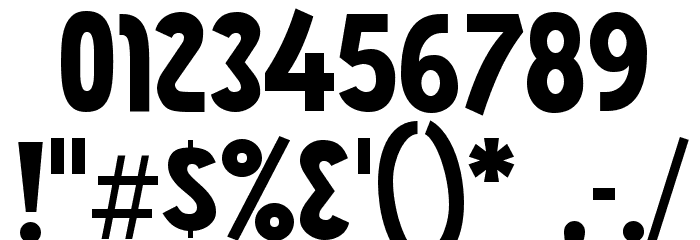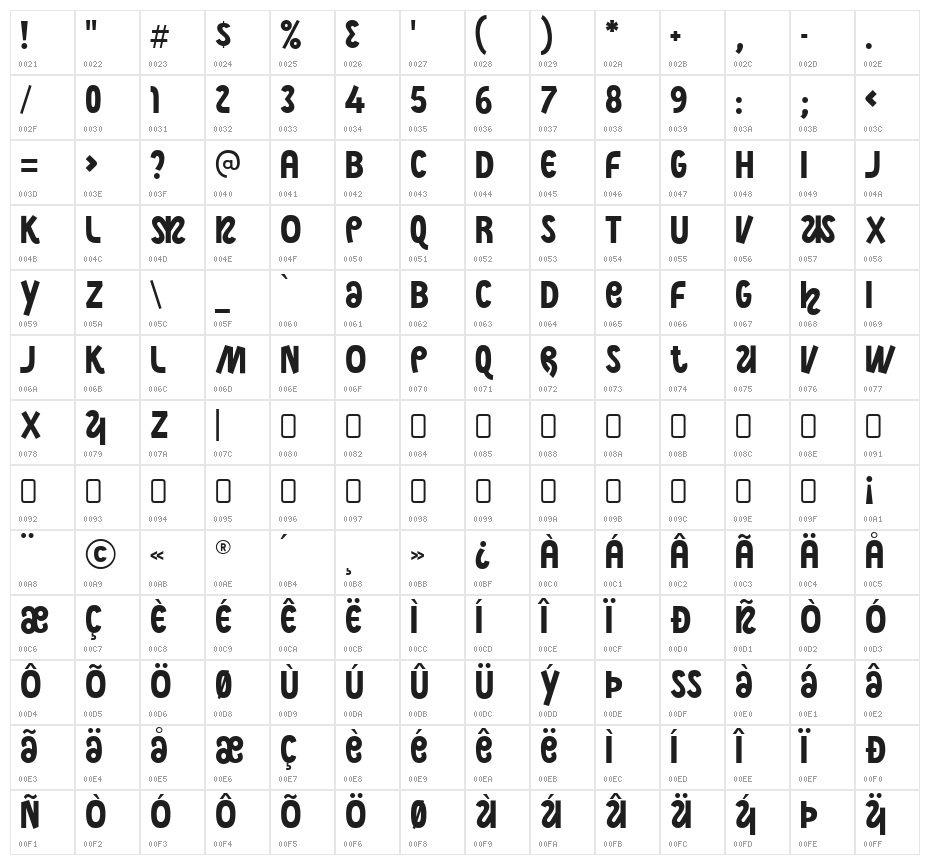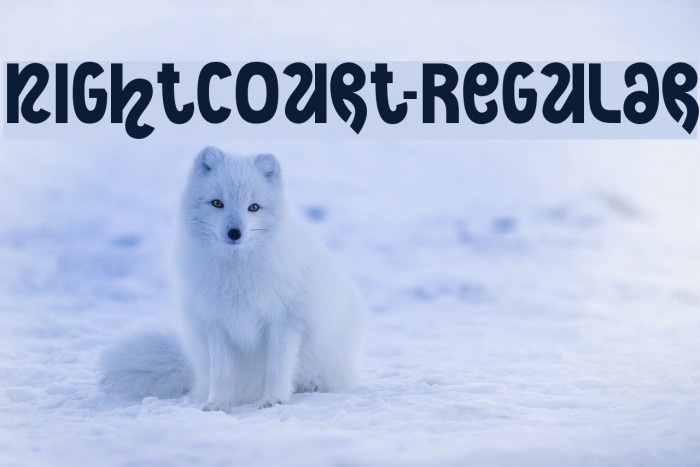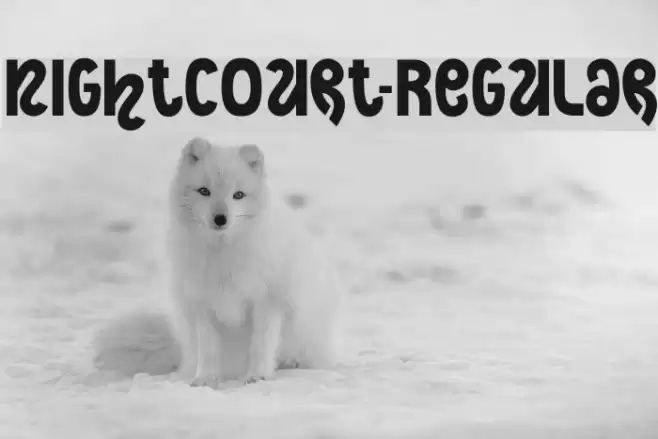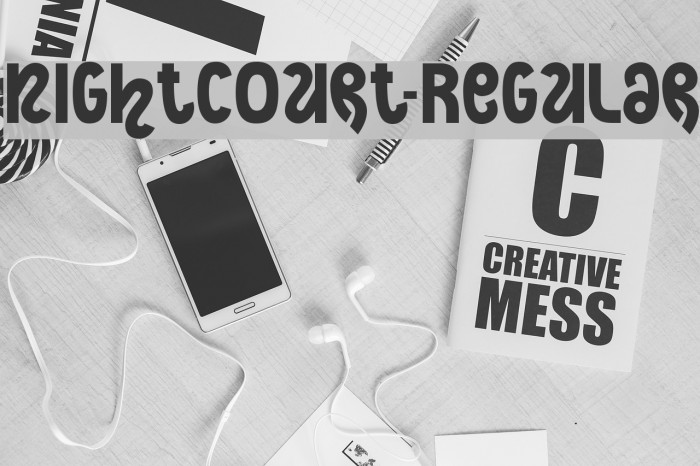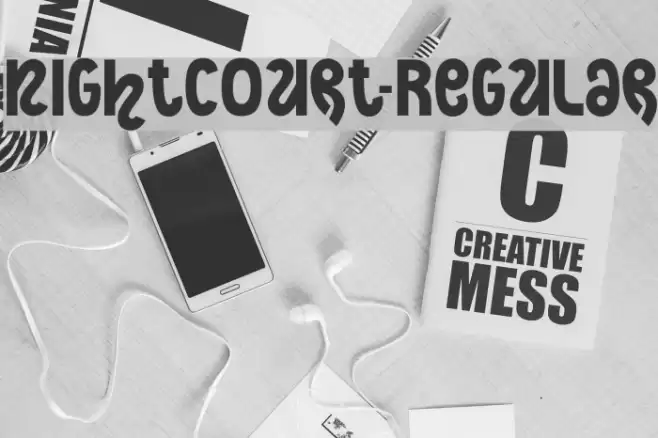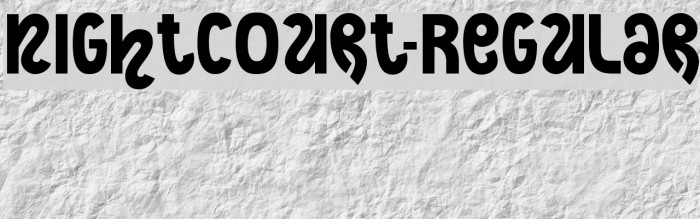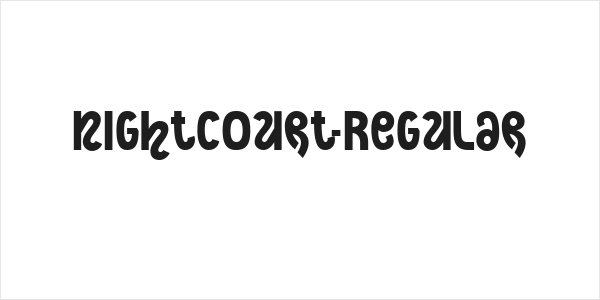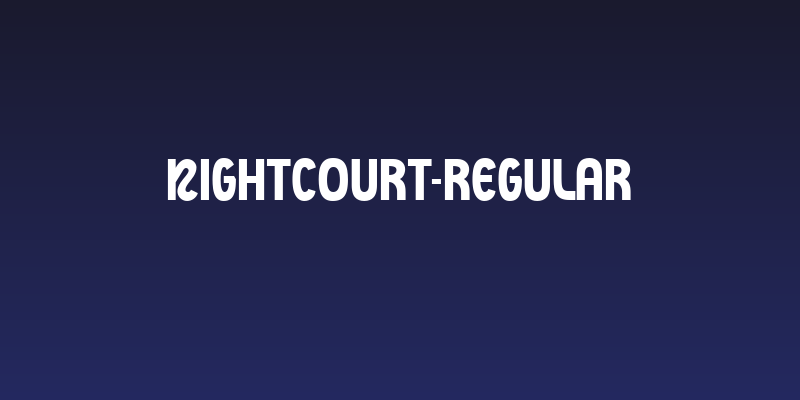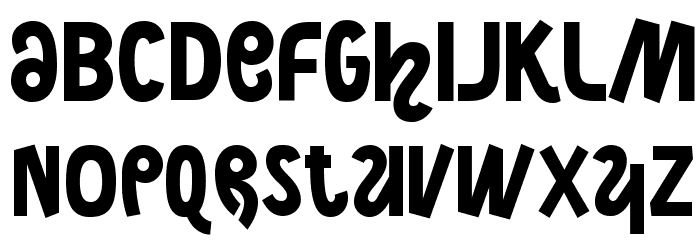
NightCourt-Regular Font
NightCourt-Regular Description
This font features a bold and dynamic style with a playful yet structured appearance. The characters are designed with a unique flair, incorporating both straight and curved lines that create a sense of movement and energy. The uppercase letters are particularly striking, with some characters featuring unexpected angles and curves that add to the font's distinctive personality. The lowercase letters maintain the same boldness, ensuring consistency across text. Numbers and special characters are equally bold, making them stand out in any design. The overall look is modern and eye-catching, suitable for projects that require a strong visual impact.